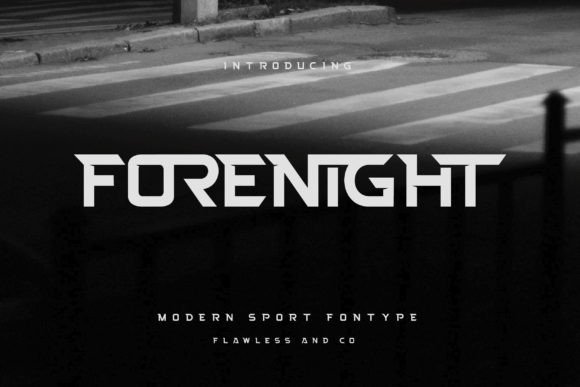
Introducing Forenight Font - the ultimate choice for sports enthusiasts and designers seeking to infuse power, energy, and athleticism into their creations. Developed by the renowned Flawless And Co., this dynamic and modern display font is specifically crafted to capture the spirit of athleticism and ignite a sense of excitement within your sports-related designs.
With its bold and sleek letterforms, Forenight exudes a commanding presence, instantly grabbing attention and captivating the viewer. Whether you're creating sports team logos, jerseys, posters, or any design that aims to convey strength and competitiveness, this font is your perfect companion.
Immerse yourself in the adrenaline-pumping world of athletic events with Forenight Font's unique and inspiring design. Its powerful strokes and meticulously crafted curves beautifully symbolize the speed, intensity, and agility seen on the field or court. Each character reflects a sense of movement, effortlessly blending grace and strength to create a visually stunning experience.
Unleash your creativity and let Forenight Font be the driving force behind your captivating designs. Elevate your brand and leave a lasting impression with its captivating and emotional appeal. Whether you're a professional designer or a sports enthusiast, this font will effortlessly bring your vision to life.
Experience the power and energy of Forenight Font today, and revolutionize your sports-related designs. Turn heads, inspire action, and stand out from the crowd with this exceptional font that truly embodies the essence of athleticism and competitiveness. Get ready to make an impact that resonates with your audience like never before.